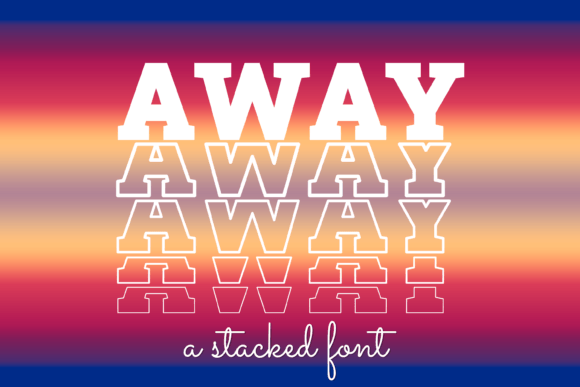
Step into a world of boundless creativity with Away Font, a mesmerizing display font that sparks imagination and captivates hearts. Designed by the renowned WADLEN, Away is a masterful creation that elevates your projects to new heights of beauty and distinction.
With its graceful curves and striking lines, Away Font commands attention wherever it appears. Whether you're a seasoned designer or just starting your creative journey, Away empowers you to express yourself with flair and originality. From eye-catching logos and branding to stunning social media posts and invitations, Away Font adds an instant touch of elegance and sophistication to any design.
Crafted with meticulous attention to detail, Away Font features an extensive character set that includes uppercase and lowercase letters, punctuation, and a range of international characters. Its versatility shines through its diverse range of stylistic options, allowing you to customize your designs to perfection. Whether you prefer a classic, timeless look or a modern, edgy aesthetic, Away Font effortlessly adapts to your vision.
Unleash your creativity with Away Font and embark on an artistic adventure like no other. Let your imagination soar as you explore the endless possibilities that await you. Experience the joy of crafting unique designs that leave a lasting impression. From heartfelt greetings to bold statements, Away Font becomes your loyal companion, transforming your words into visual masterpieces.
But don't just take our word for it. Join the growing community of designers who have already discovered the magic of Away Font. Read their glowing testimonials and see how this font has transformed their creative process. Discover why Away Font is the font of choice for those who demand excellence and originality in their designs.
With Away Font, you'll never settle for ordinary again. This font is your gateway to a world of extraordinary creativity, where your imagination knows no bounds. Embrace the power of Away Font and let your designs shine with unparalleled beauty and impact.